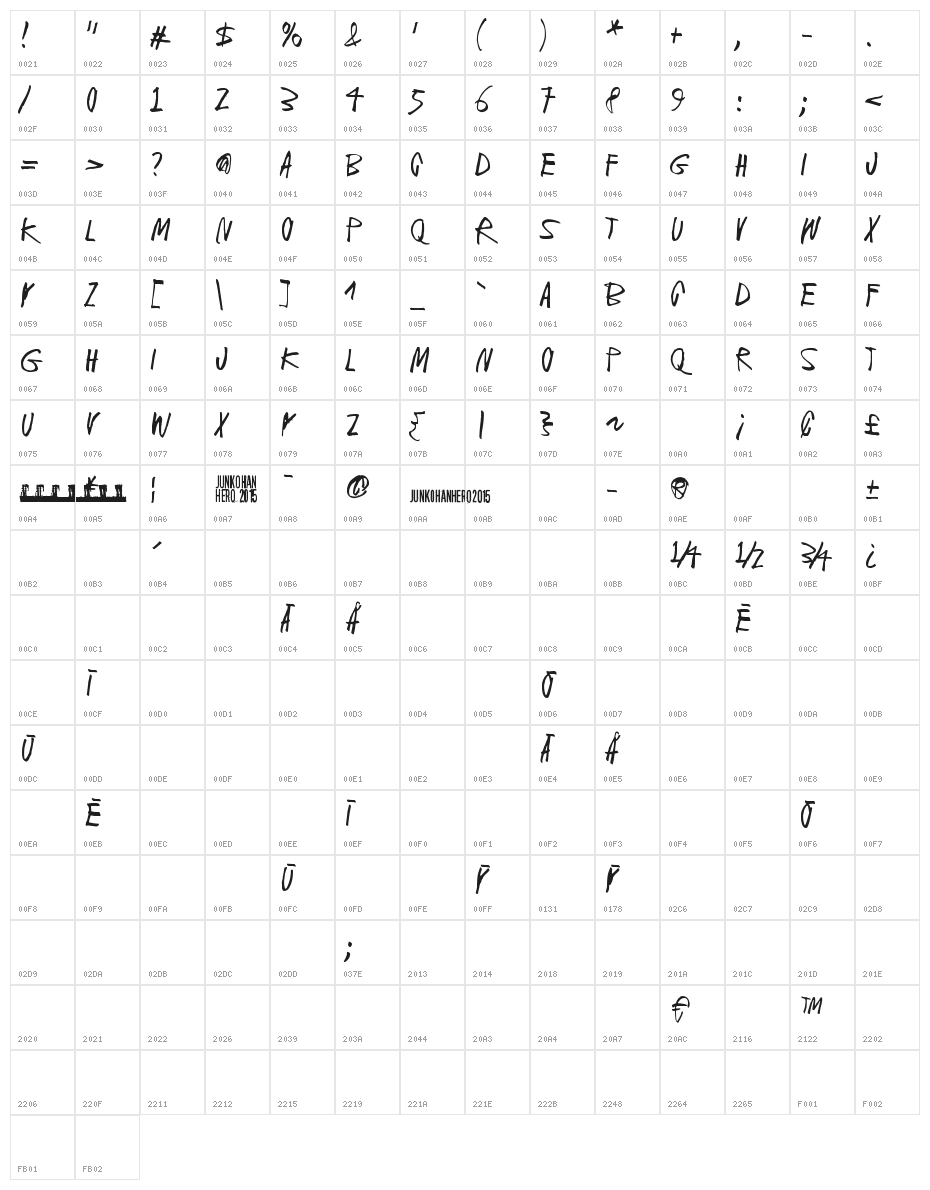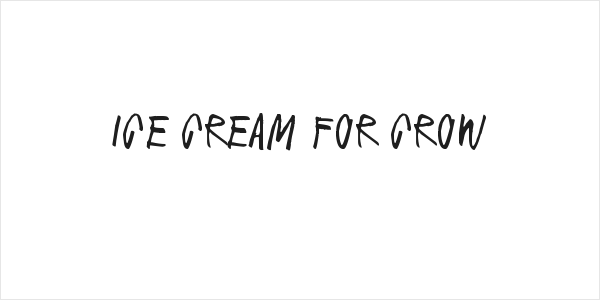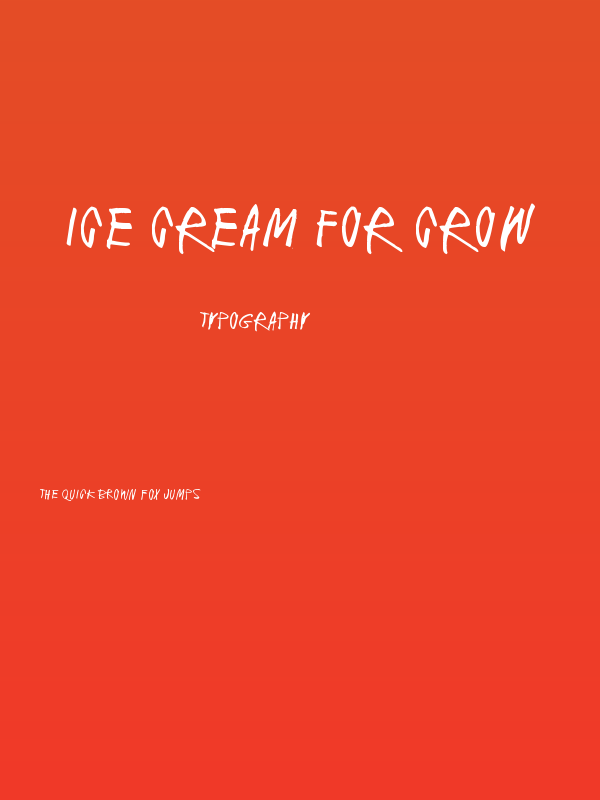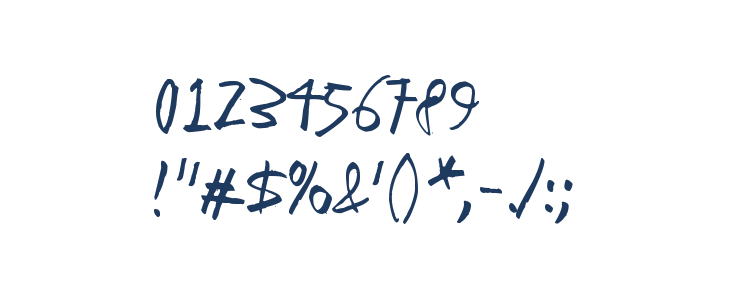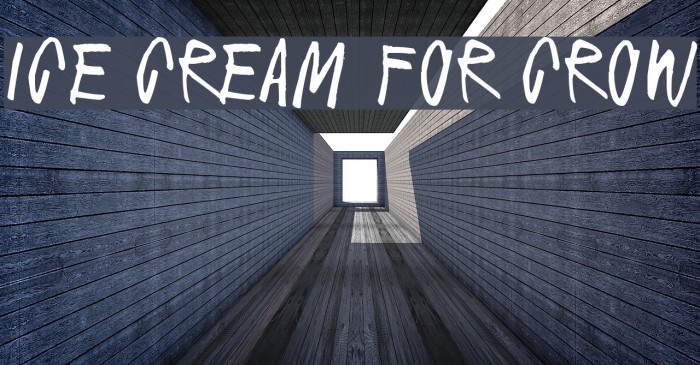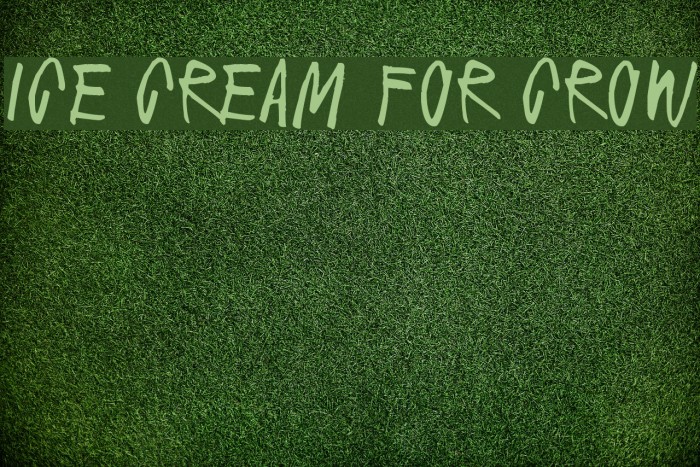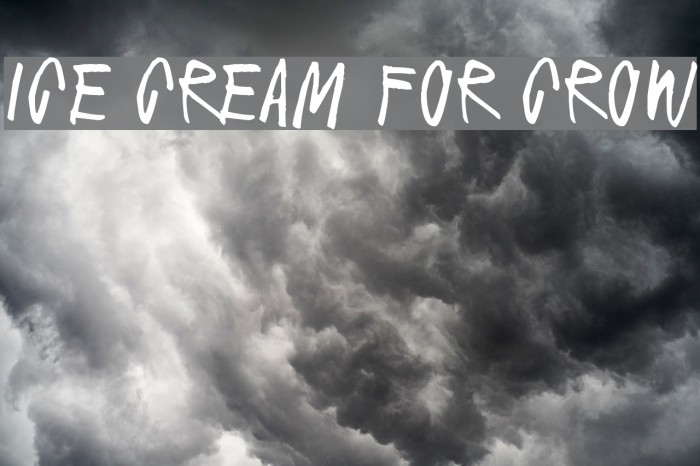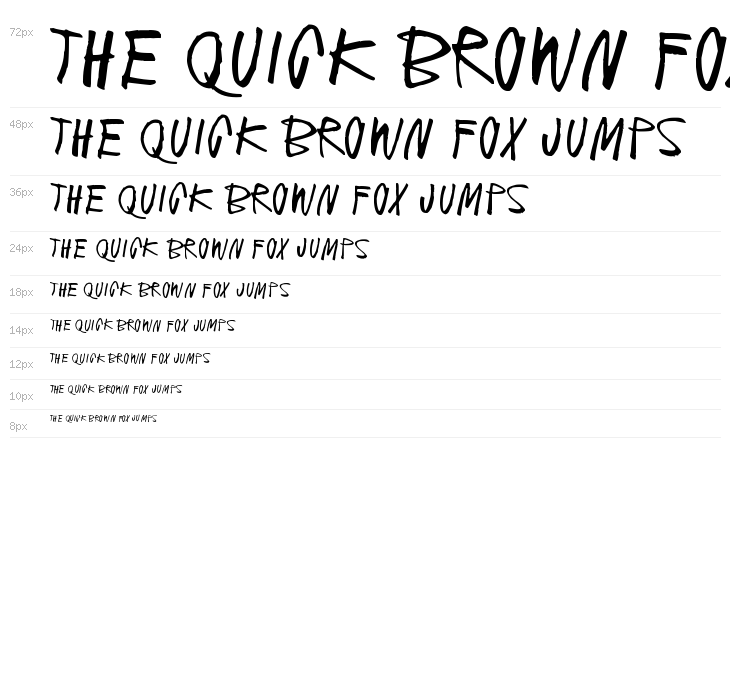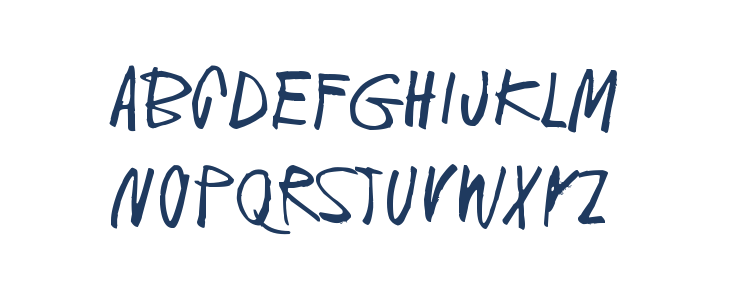
Ice cream for crow Font
Ice cream for crow Description
This font exudes a dynamic and energetic vibe, characterized by its bold, handwritten style. The letters are slightly slanted, giving a sense of movement and spontaneity. The strokes are uneven, with varying thickness, adding a raw and artistic touch. The uppercase and lowercase letters maintain a consistent style, while the numbers and special characters complement the overall aesthetic. This font is perfect for projects that require a personal, informal, and creative feel.
| Use Case | Logos, Posters, Creative Branding |
| Proposed Projects | Ideal for creative projects such as posters, album covers, and artistic branding. |